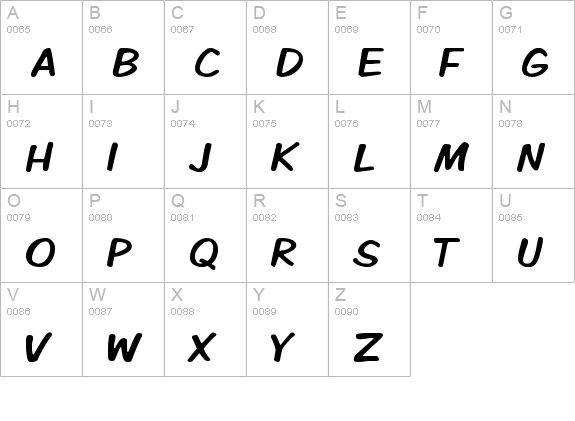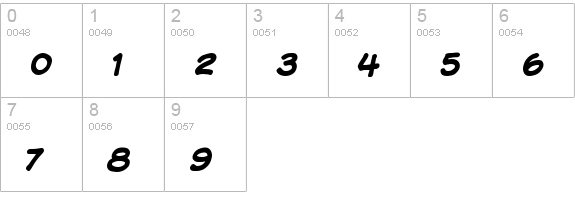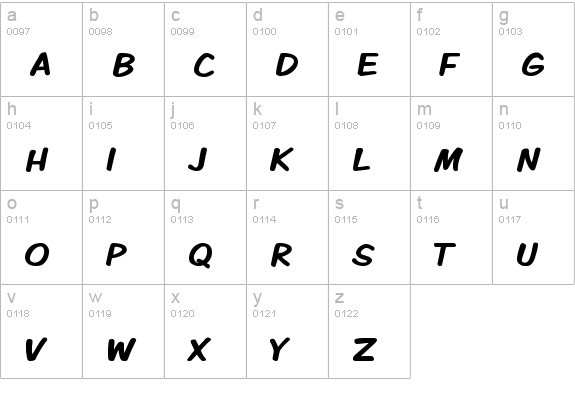
Komika Display Kaps font is a bold and eye-catching typeface that exudes a sense of modernity and creativity. With its distinctive and playful design, this font is perfect for making a statement in your designs. The sharp angles and unique letter shapes give Komika Display Kaps a dynamic and edgy look that is sure to grab attention. What's even better is that Komika Display Kaps font is available for free download at FontsMarket.com. Whether you're working on a poster, logo, headline, or any other creative project, this font will add a touch of personality and style. Stand out from the crowd and make a lasting impression with Komika Display Kaps font. Download it now and unleash your creativity!